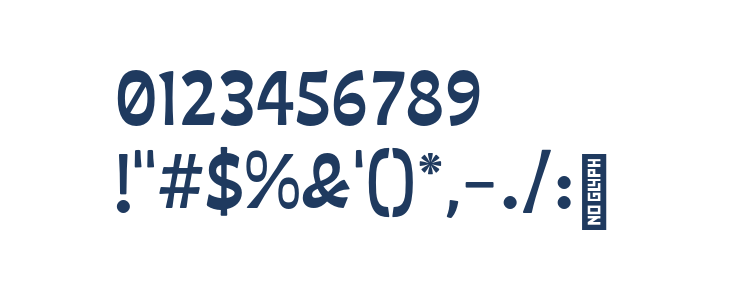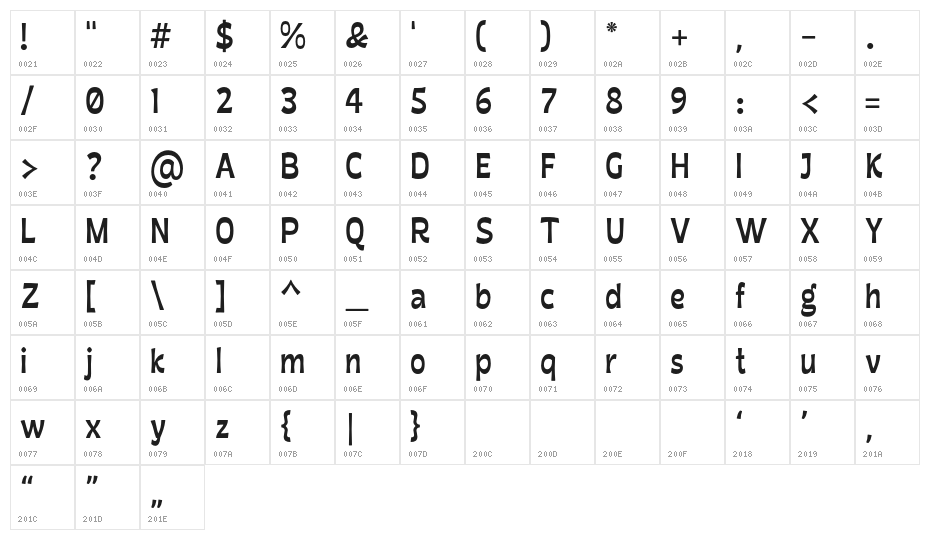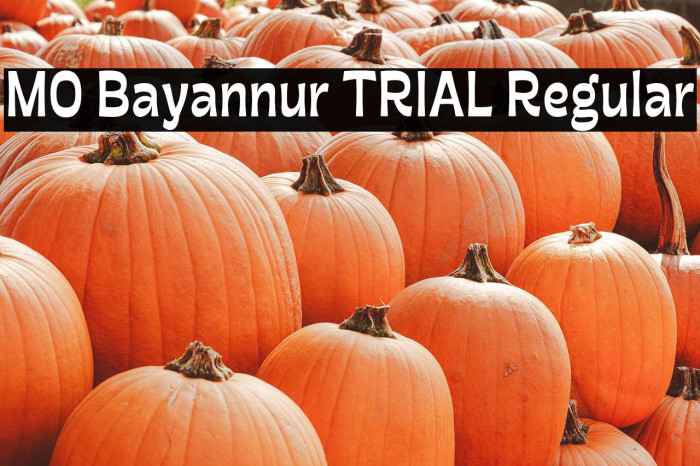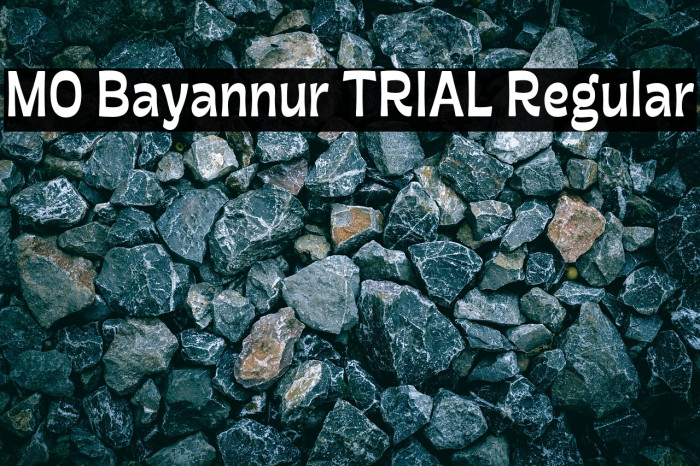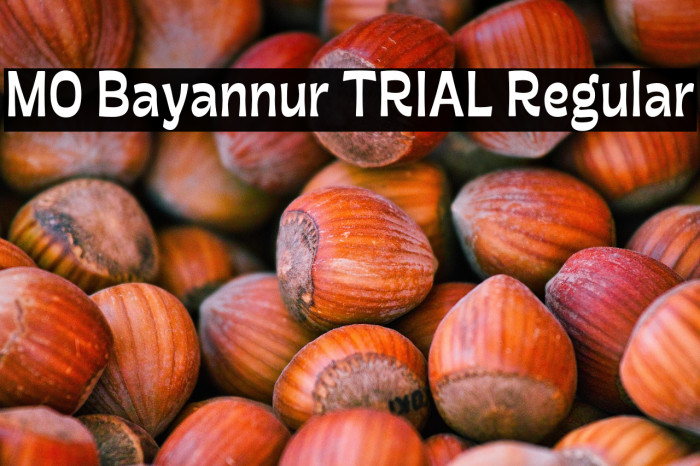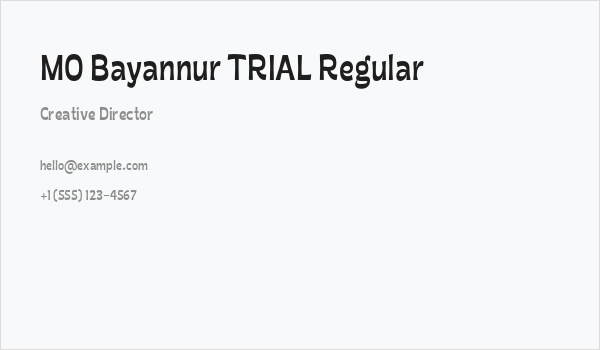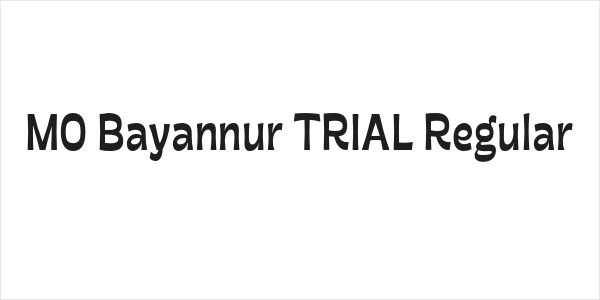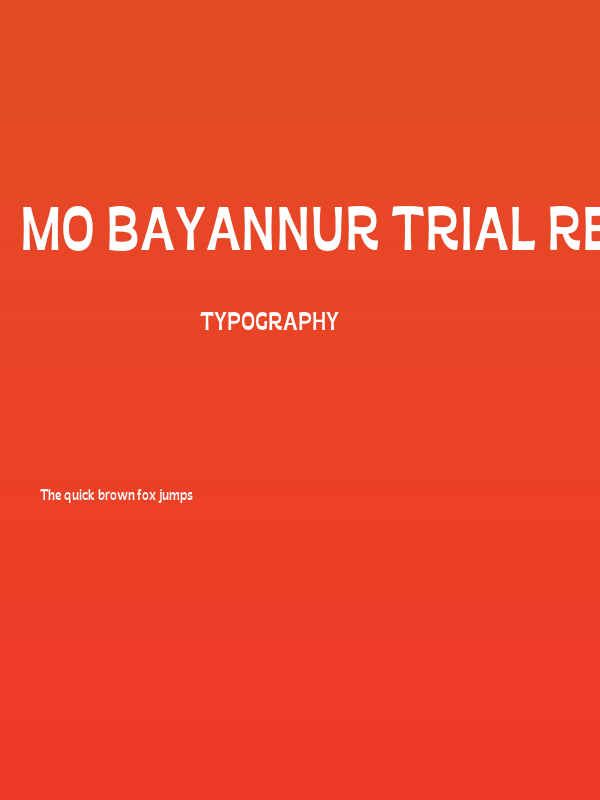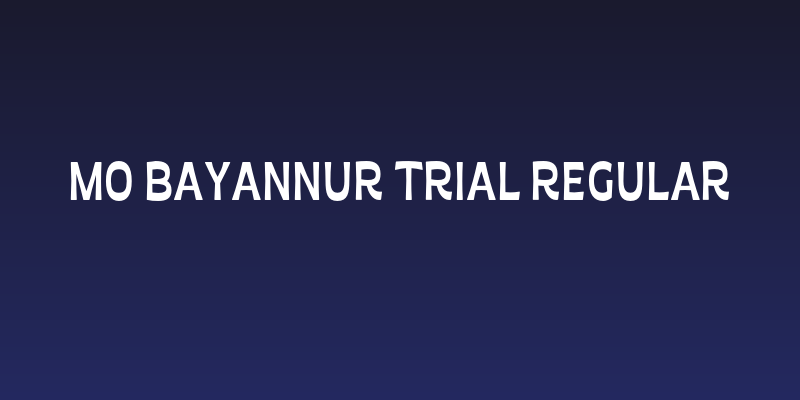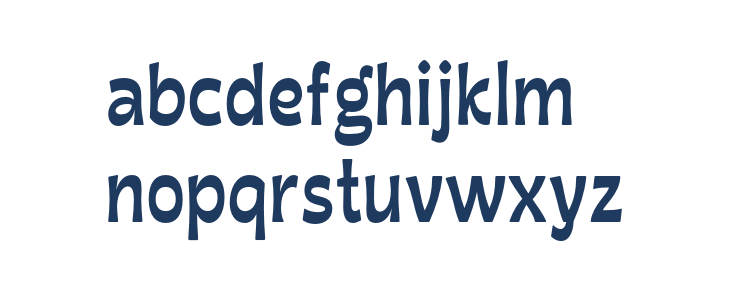
MO Bayannur TRIAL Regular Font
MO Bayannur TRIAL Regular Description
This font features a playful and slightly irregular design, with a hand-drawn aesthetic that adds a touch of whimsy. The uppercase letters are bold and slightly condensed, while the lowercase letters maintain a consistent style with rounded edges and a casual feel. The numerals are clear and legible, matching the overall playful tone of the font. Special characters are included, maintaining the same quirky style. The font's unique character is suitable for projects that require a friendly and approachable look.
| Proposed Projects | Ideal for children's books, playful branding, casual invitations, and creative posters. |